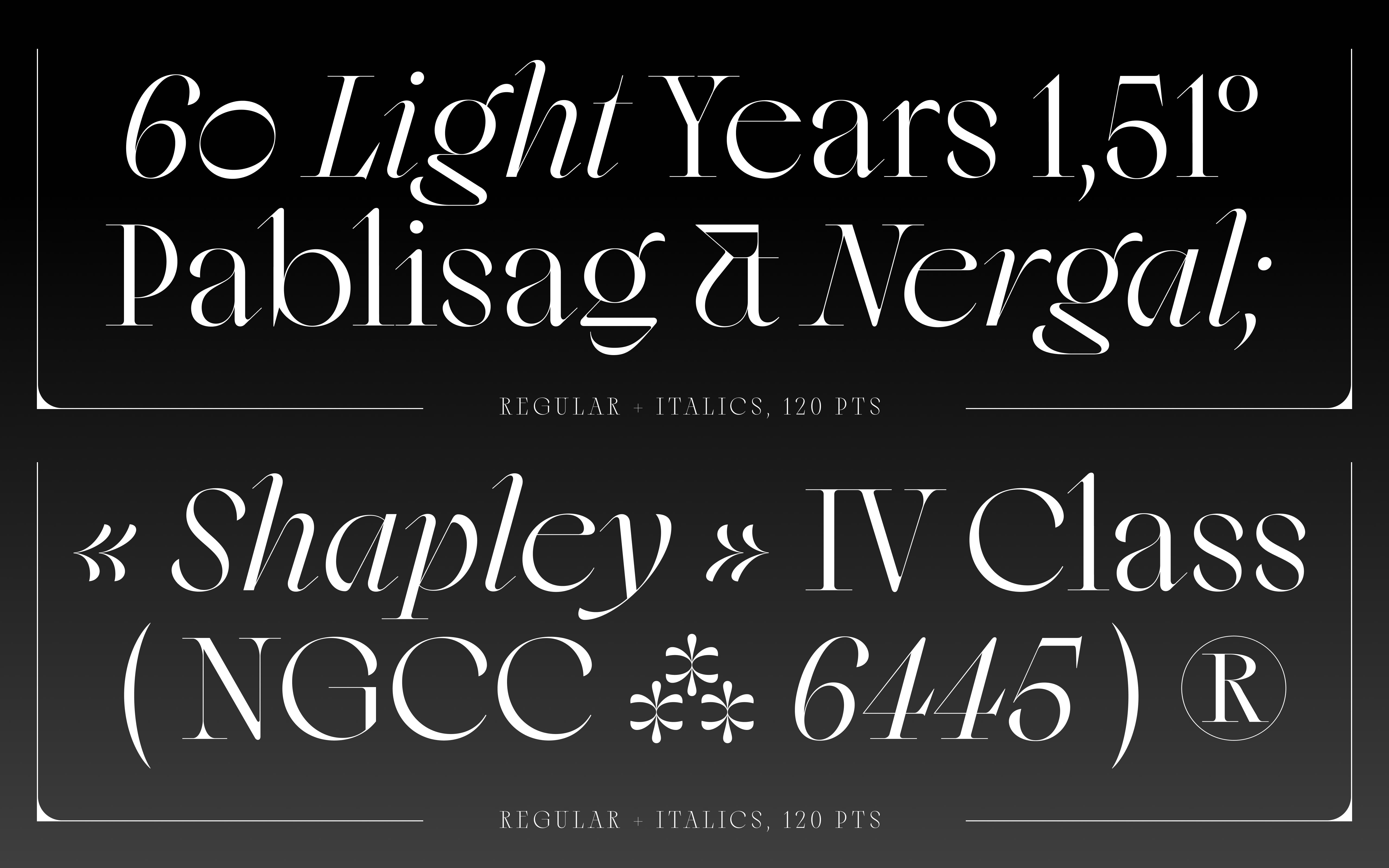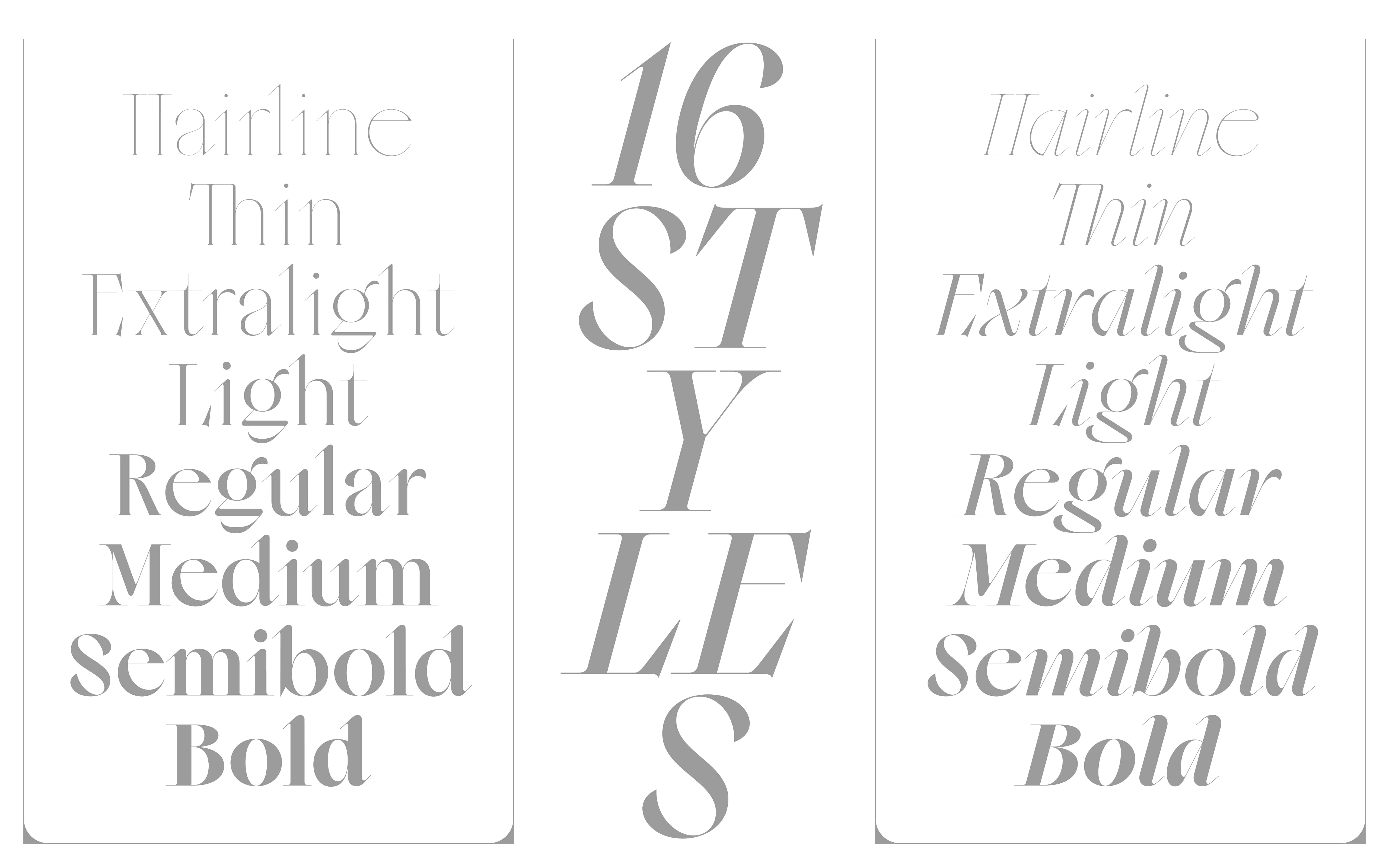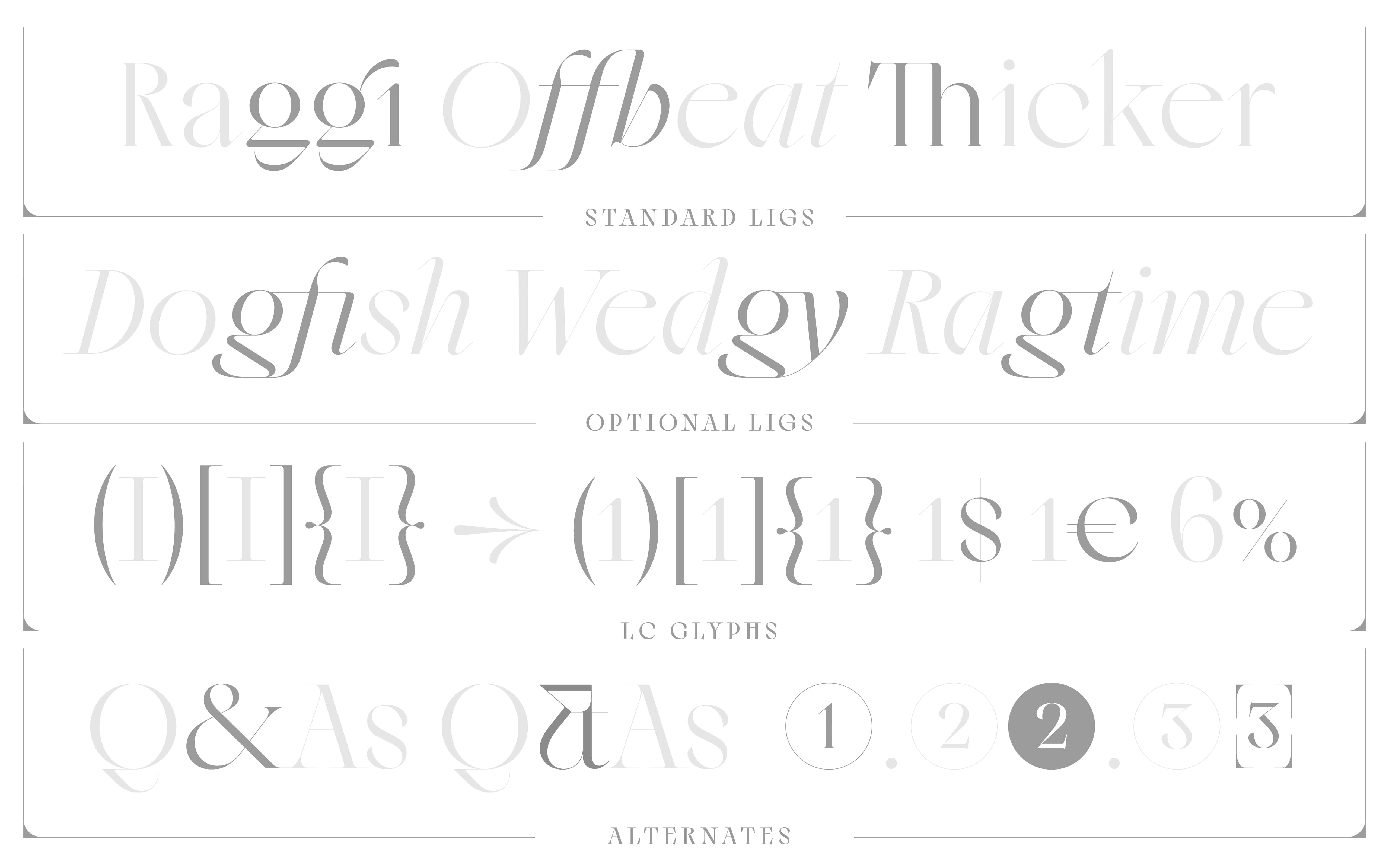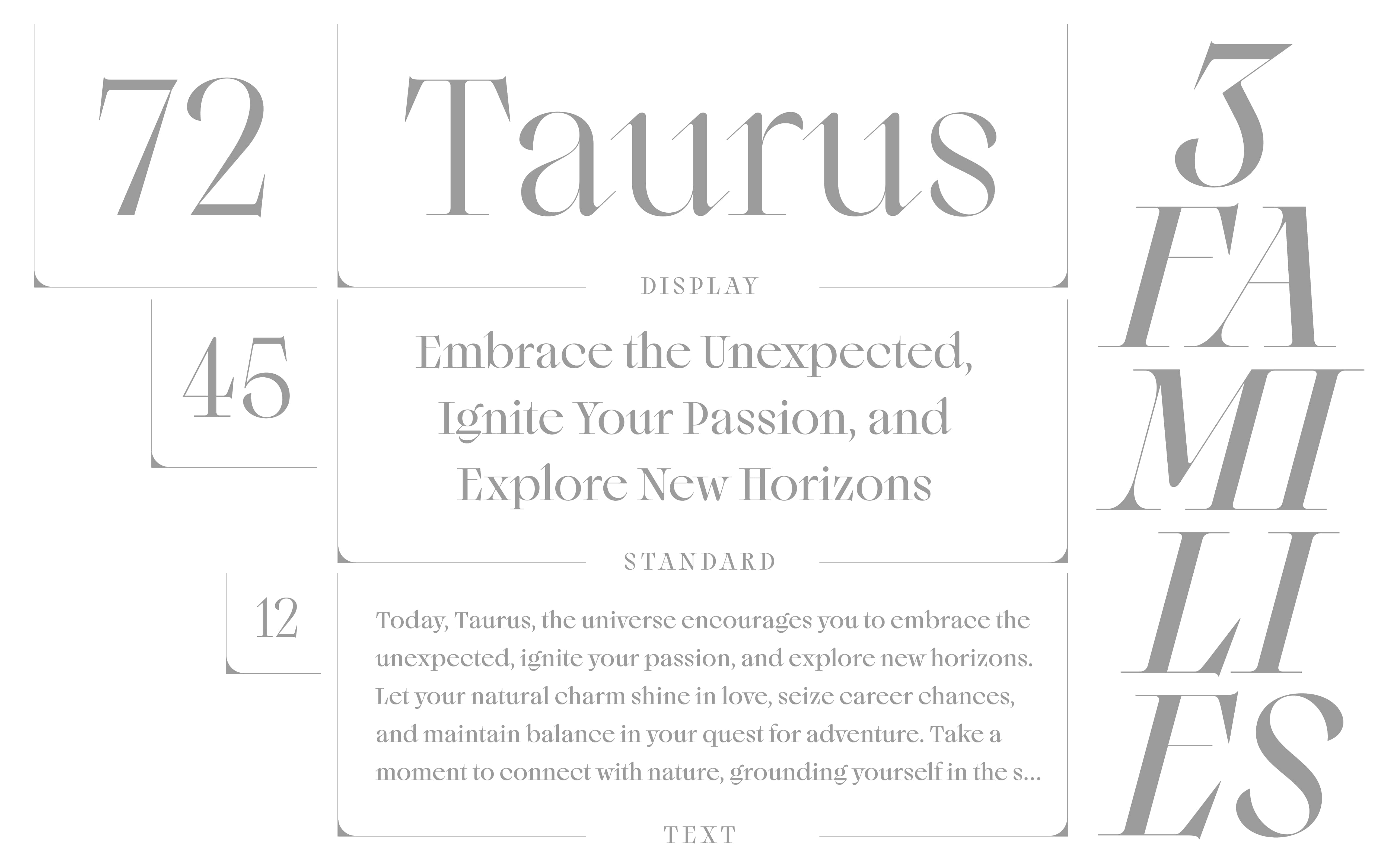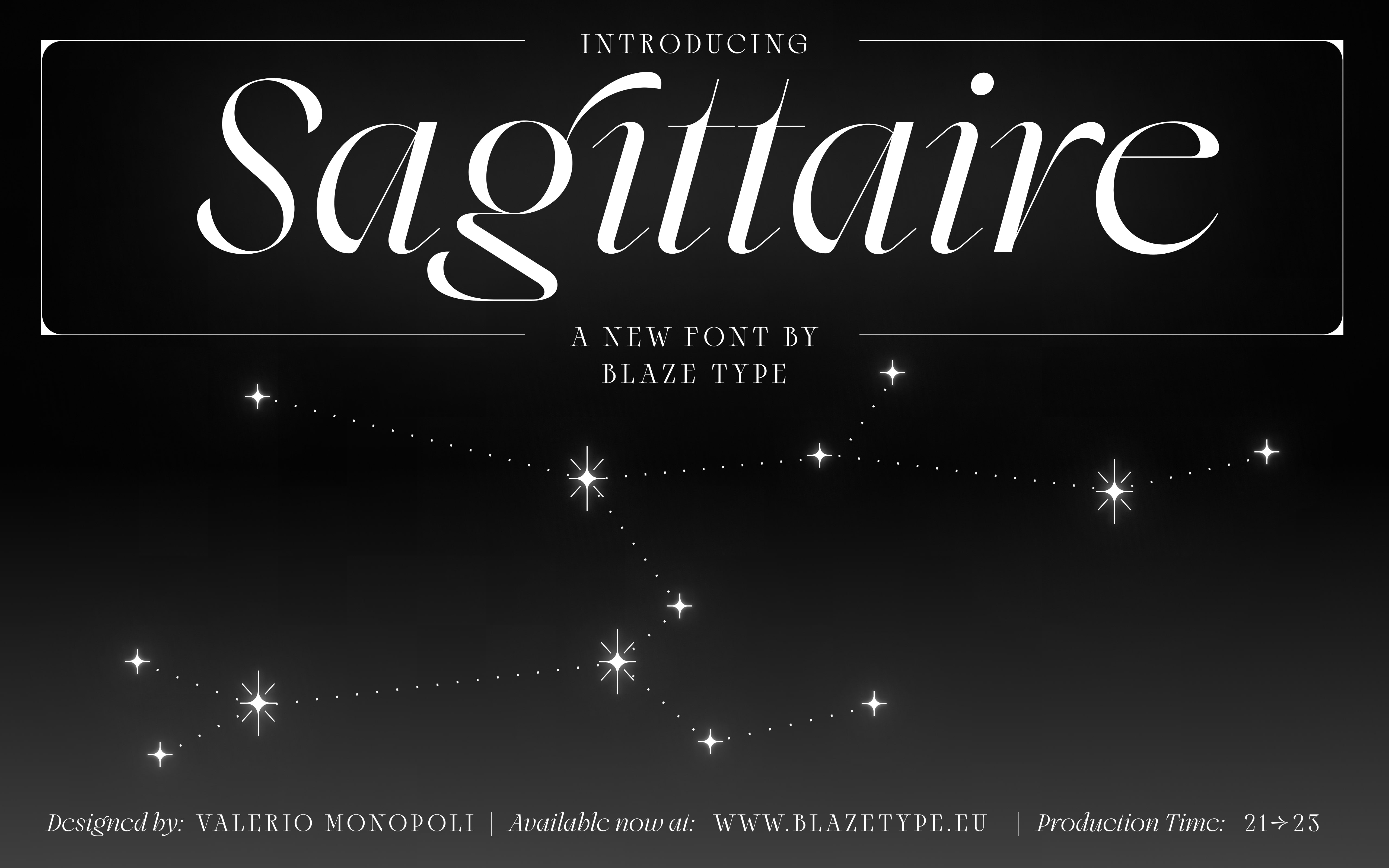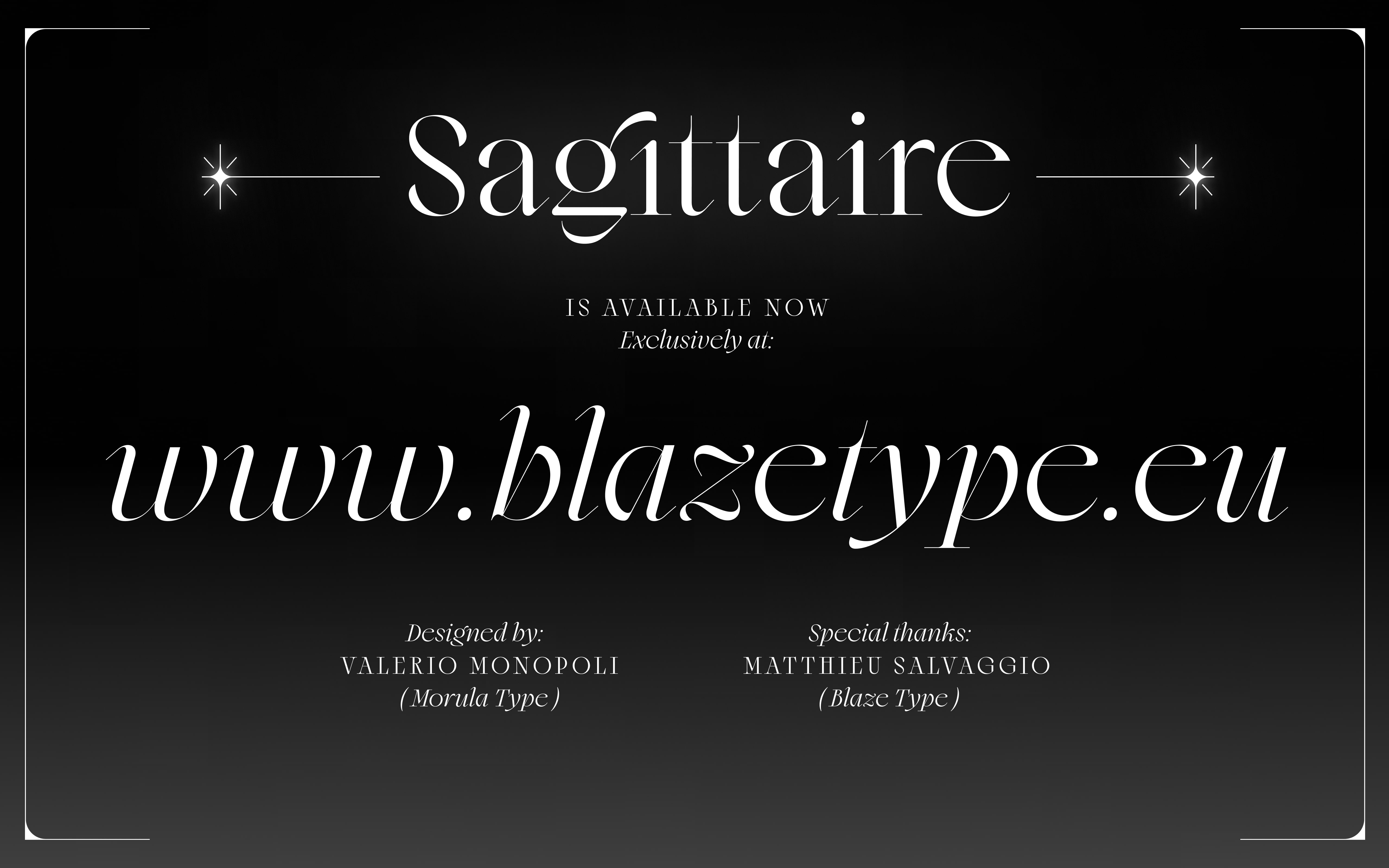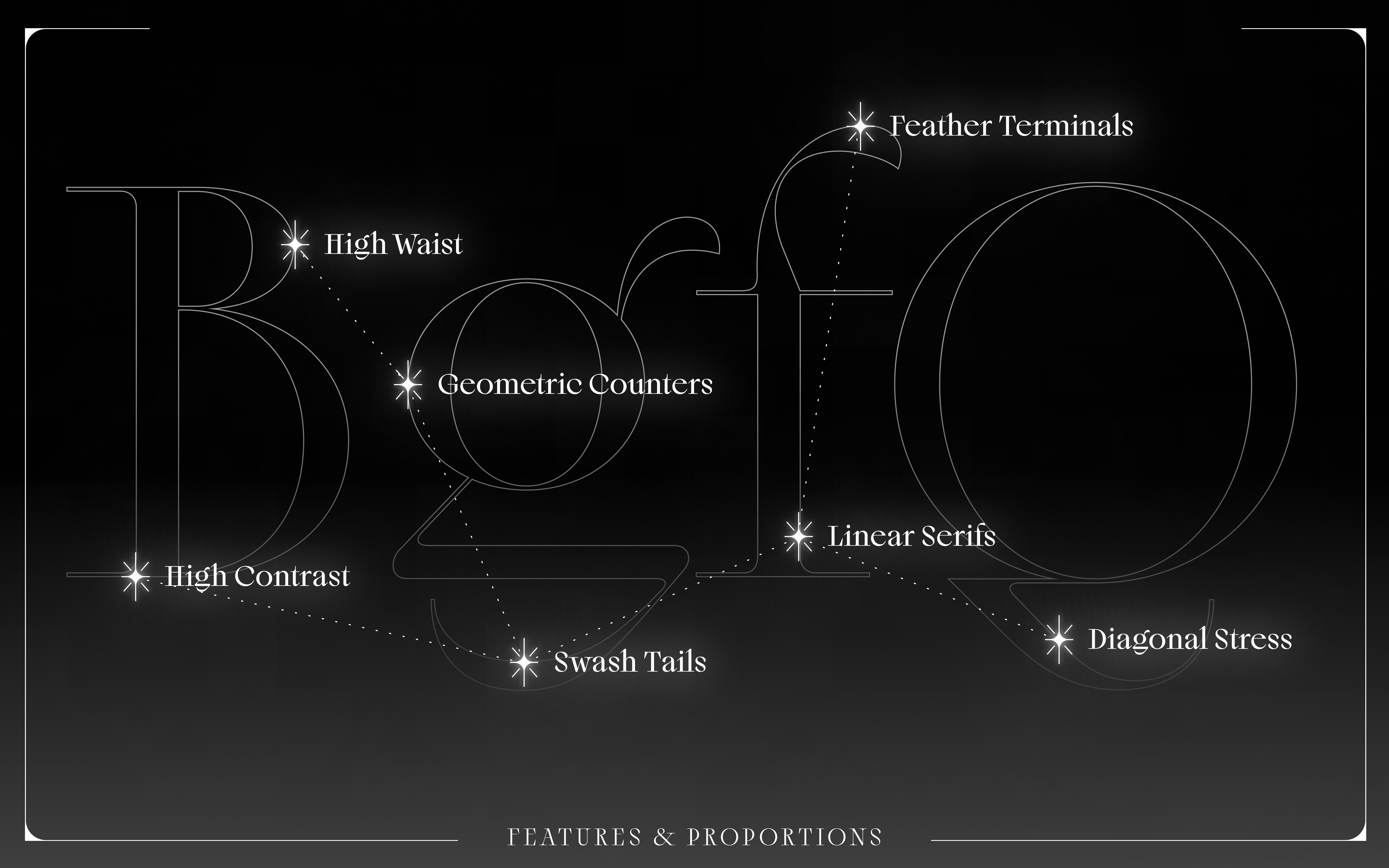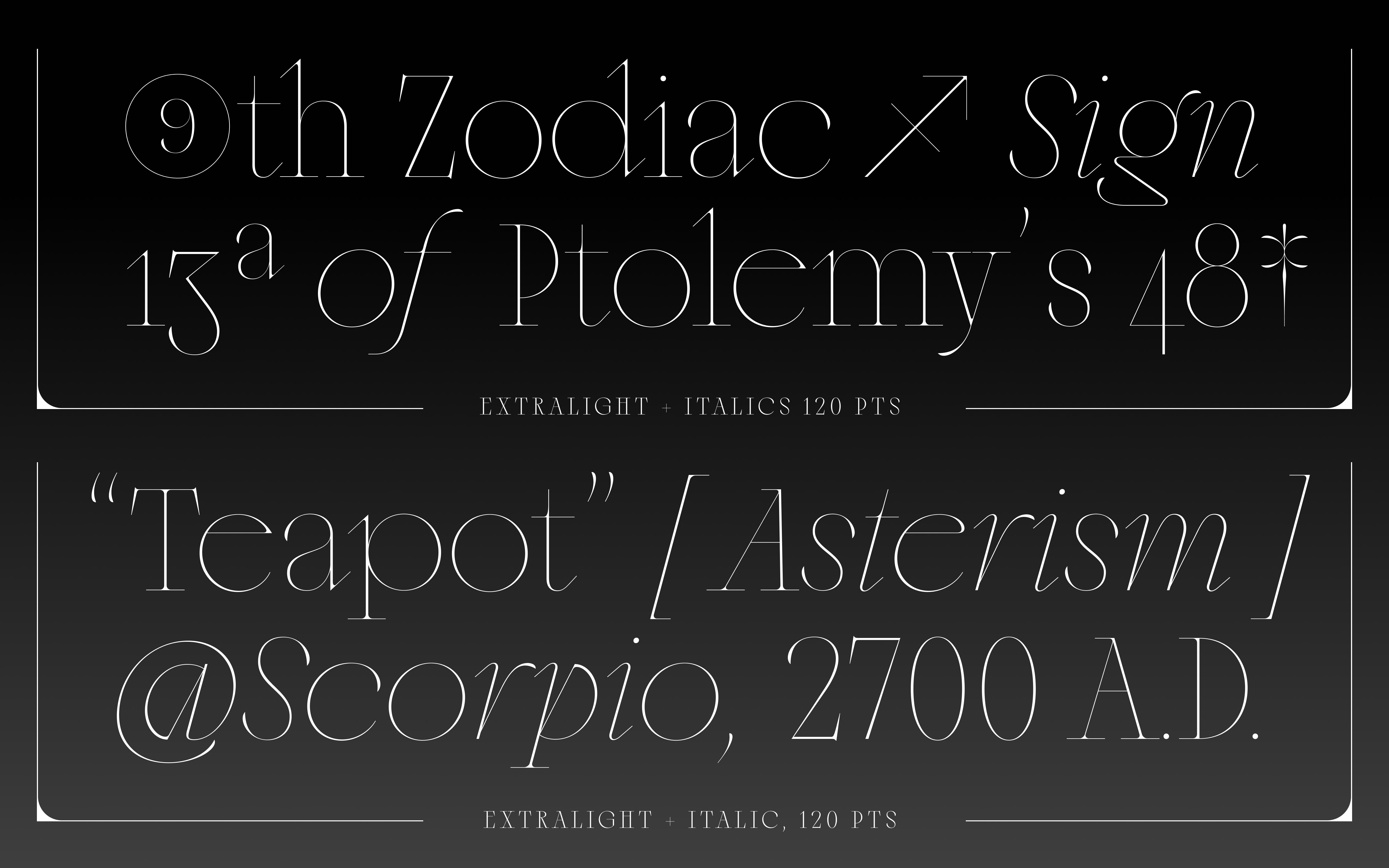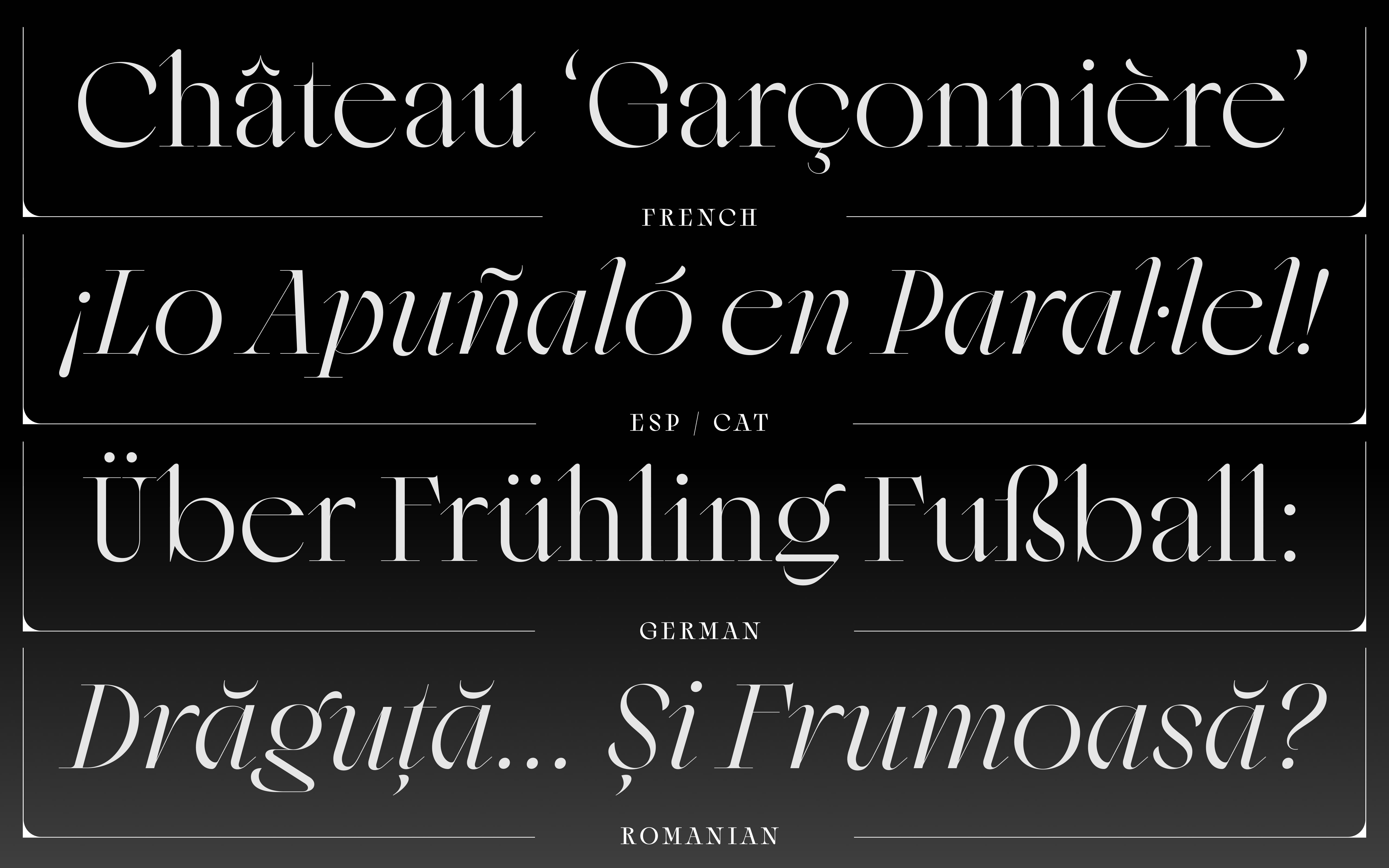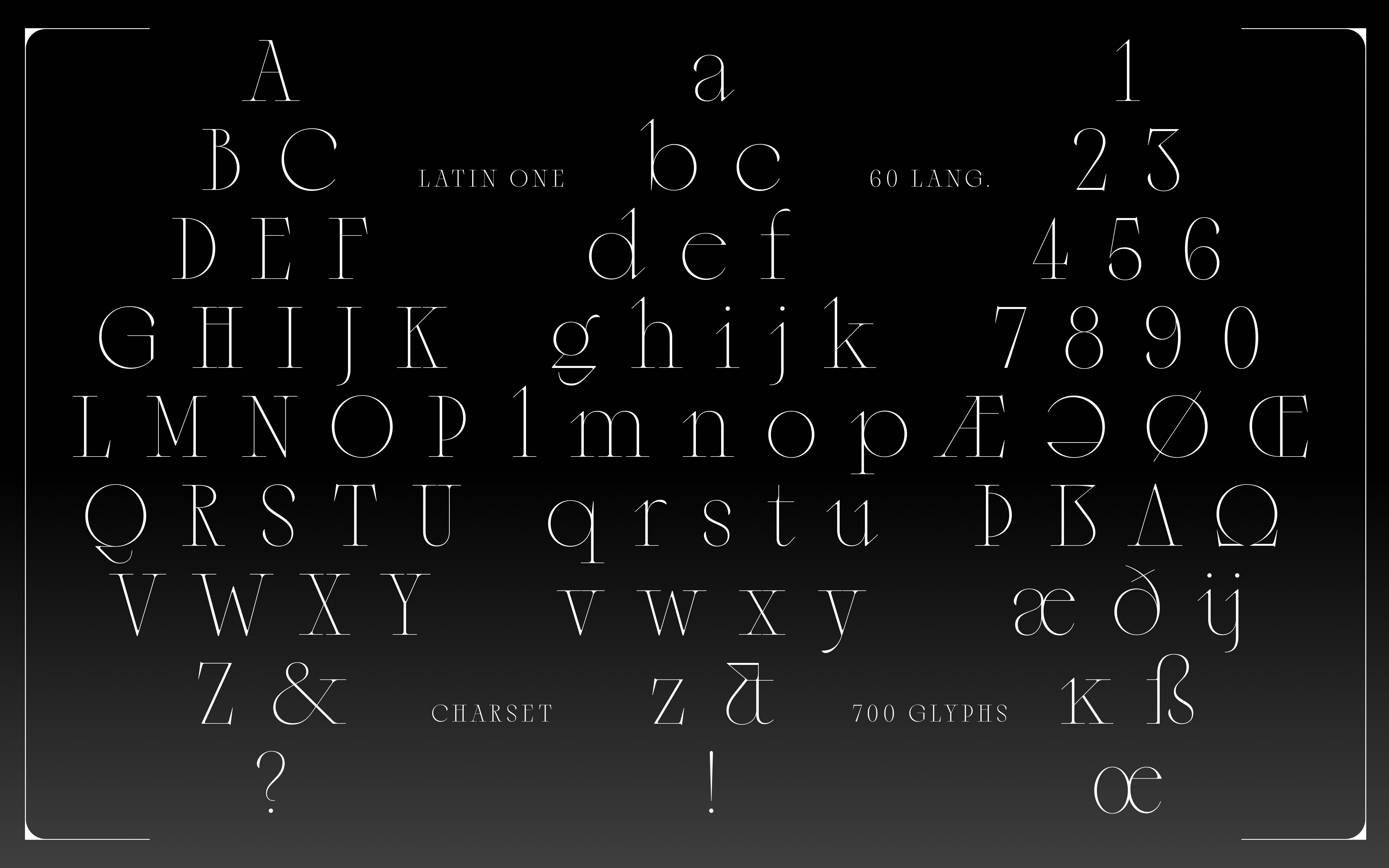
Sagittaire
Like the mythological arrow-slinging centaur, said to never miss the target he’s aiming at, Sagittaire is a hybrid creature: halfway humanist and nuanced, halfway raw and undomesticated, it traces a bewildering figure characterised by a high-waisted body with a seemingly unnatural distribution of widths an volumes. At its extremities, feather-like terminals bloom from orthogonal stems, flowing gracefully into sharp arrowheads that pierce the reader’s eye in the lightest cuts, only to gradually soften up across the 3 styles (Display, Standard, Text) for a total of 48 weights.
The matching italics, built according to the same aesthetic principles, feature a brusque sliced ductus that adds diagonal stress to an already spirited texture. Through the combination of these two styles, Sagittaire’s bedazzling appearance is fully manifested: an outlandish carrier of mystical symbolism ready to take its place in the firmament of typography.
Whatever the objective of your design is, you can rest assured, Sagittaire will always hit the spot.